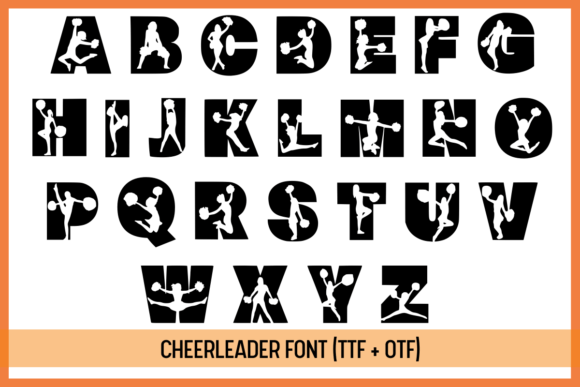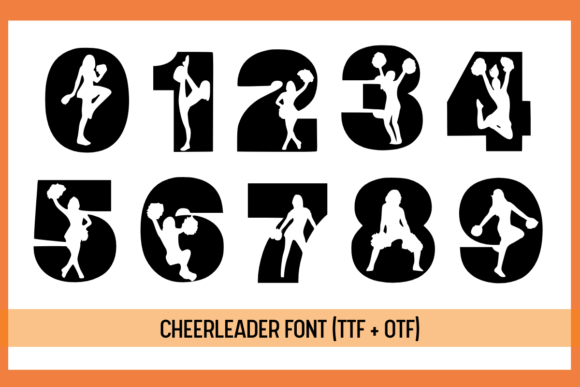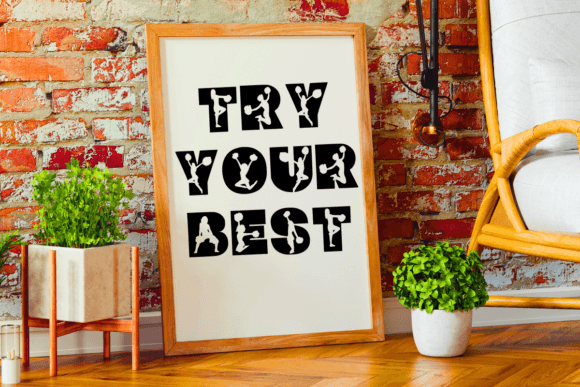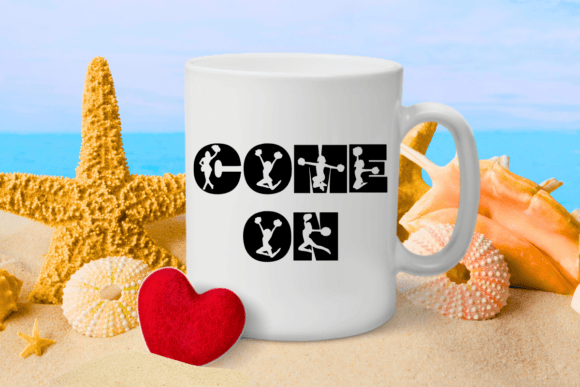
Introducing Cheerleader Font: Add a Burst of Energy to Your Designs
Are you looking for a font that can add a fun and lively touch to your designs? Look no further than the Cheerleader Font! This playful font is perfect for designers and crafters who want to create bold and eye-catching projects that are sure to grab attention.
What is Cheerleader Font?
Cheerleader Font is a unique and energetic font that features cheerleader silhouettes in each letter. The font is designed to be playful and fun, making it perfect for projects that require a burst of energy and excitement. Whether you’re creating posters, banners, or any other type of design, Cheerleader Font is sure to add a touch of whimsy and personality.
Key Features of Cheerleader Font
- Energetic and playful design: Each letter is filled with cheerleader silhouettes, making it a fun and eye-catching font.
- Bold and attention-grabbing: The font is perfect for projects that need to stand out and grab attention.
- Versatile: Cheerleader Font can be used for a variety of projects, including posters, banners, and more.
Uses for Cheerleader Font
Cheerleader Font is perfect for a variety of projects, including:
- Posters: Add a burst of energy to your posters with Cheerleader Font.
- Banners: Create eye-catching banners with Cheerleader Font.
- Party decorations: Use Cheerleader Font to create fun and playful party decorations.
- Social media graphics: Add a touch of personality to your social media graphics with Cheerleader Font.
- Crafting projects: Use Cheerleader Font to add a fun and playful touch to your crafting projects, such as scrapbooking and card making.
Tips for Using Cheerleader Font
Here are a few tips for using Cheerleader Font:
- Use it sparingly: While Cheerleader Font is fun and playful, it can be overwhelming if used too much. Use it sparingly to add a burst of energy to your designs.
- Pair it with a simple font: Pair Cheerleader Font with a simple font to create contrast and make your design stand out.
- Experiment with colors: Cheerleader Font looks great in bright and bold colors. Experiment with different colors to find the perfect combination for your design.
Cheerleader Font is a fun and lively font that’s perfect for adding a bold touch to your designs. With its energetic and playful design, Cheerleader Font is sure to grab attention and add a burst of energy to your projects. Whether you’re a designer or crafter, Cheerleader Font is a great choice for any project that needs a touch of personality and whimsy.